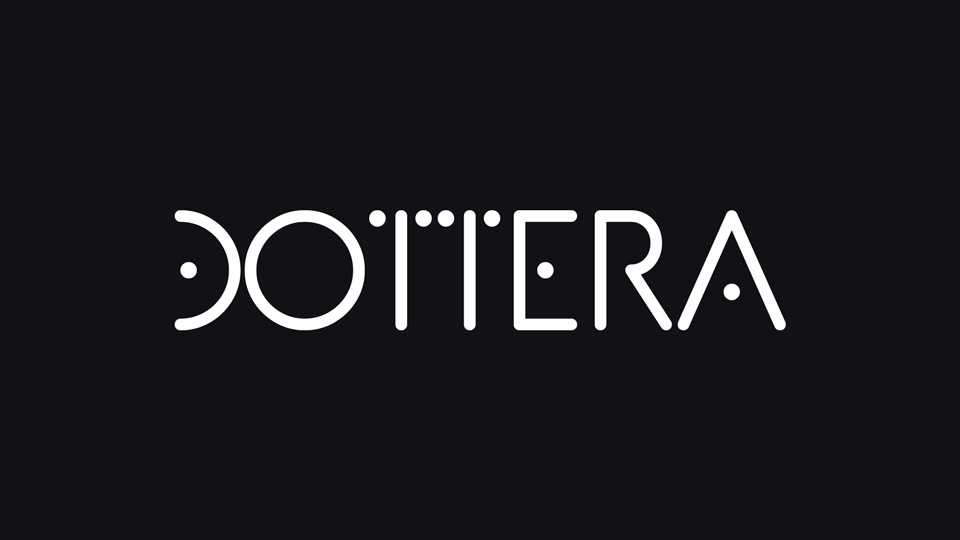
Download Dottera font, a creative geometric display typeface with a modern minimalist look. Dottera font perfectly suits for logos, branding, posters, short messages, merch and other arttworks.
Designer: Union Sozialer Einrichtungen gGmbH